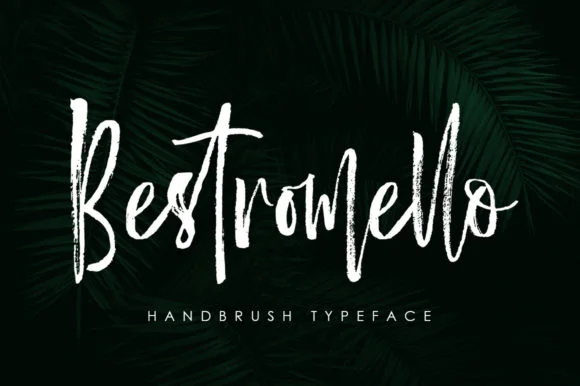
Bestromello Font
Bestromello Font is perfect for vintage-inspired branding, retro poster designs, classic diner signage, nostalgic advertising campaigns, artisanal product labels, old-school barbershop logos, antique store branding, heritage company materials, traditional craft packaging, and authentic Americana designs.
Bestromello Font is exciting because it masterfully recreates the golden age of American commercial lettering through authentic vintage character and timeless appeal that instantly transports viewers to classic mid-century aesthetics. This expertly crafted typeface combines historical accuracy with contemporary functionality, making it perfect for brands that want to evoke nostalgia while maintaining modern relevance and professional quality.
The Bestromello Font family includes multiple weights inspired by classic American signage, featuring bold display versions and refined text weights with period-appropriate styling. The font showcases vintage character details, traditional proportions, and authentic mid-century design elements that reflect the craftsmanship of historical commercial lettering artists.
The retro appeal of Bestromello Font makes it an essential tool for restaurants, entertainment venues, and lifestyle brands that want to create memorable experiences through authentic vintage atmosphere. The font's classic character helps communicate values of tradition, quality, and timeless appeal that resonate with consumers seeking genuine experiences and authentic brand stories.
Craft breweries, vintage retailers, and entertainment establishments consistently choose Bestromello Font for its ability to instantly communicate authentic retro charm and mid-century sophistication through typography. The font excels in applications where establishing nostalgic credibility and vintage appeal are crucial to brand positioning, making it particularly effective for hospitality, entertainment, and artisanal product brands.
This font's comprehensive character set includes vintage-styled letterforms, classic numerals, period punctuation marks, and specialized symbols that support authentic retro typography composition. The careful preservation of historical design elements ensures genuine vintage appearance while maintaining contemporary functionality for Bestromello Font Free Download across all nostalgic and heritage design applications.